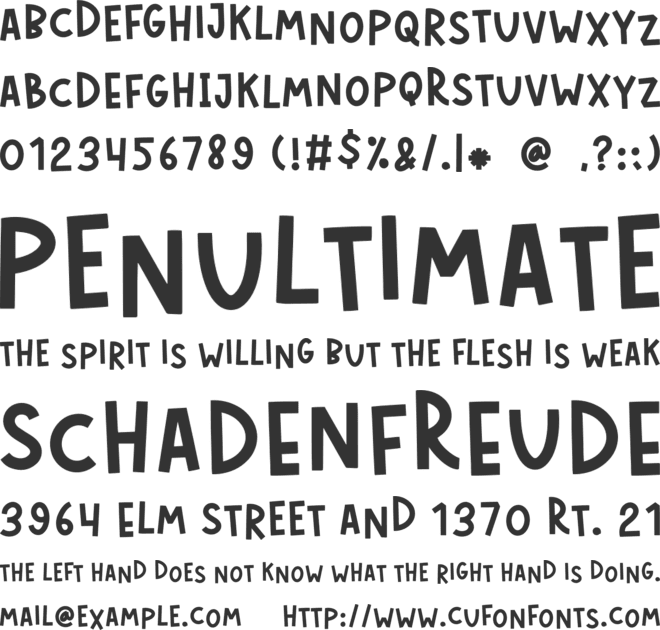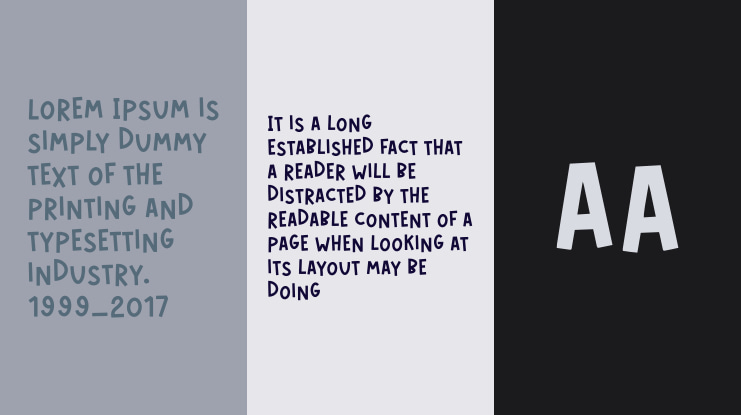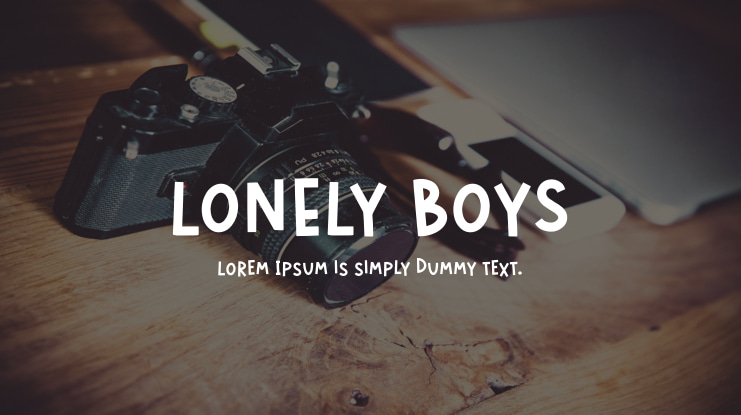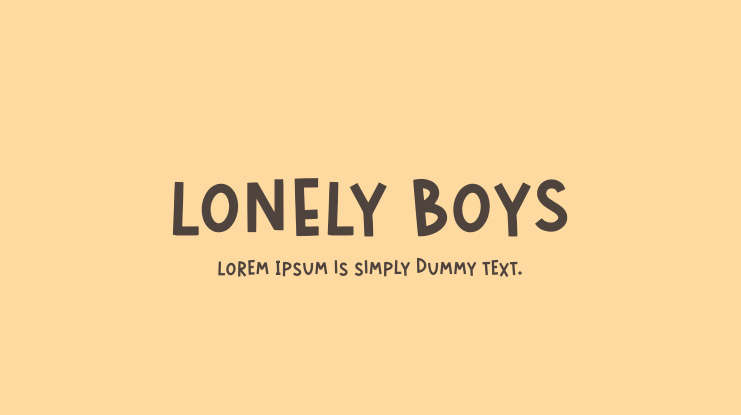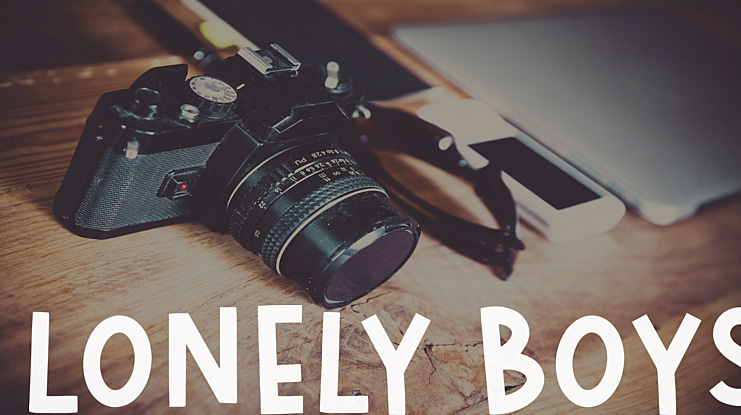
LONELY BOYS Font Family
Lonely Boys is a fun display typeface. It will lift your design and add a cheeky touch to each of your creations. Use this font for your designs and explore its endless possibilities.